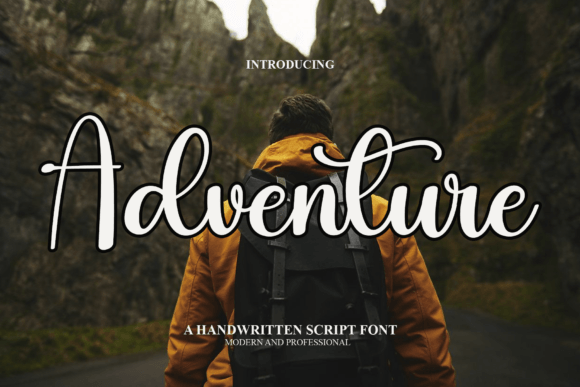
Get Ready for the Ultimate Creative Escape with Adventure Font
Have you ever found yourself in a creative rut, staring at a blank page with no idea where to begin? I’m sure you’re not alone. For designers, finding the right font can be the difference between a dull project and a truly unforgettable one. And that’s exactly where Adventure Font comes in – a unique, round-lettered handwritten font designed to transport you to a world of endless possibilities.
With Adventure Font, the possibilities are endless. Whether you’re writing titles, invitations, letters, or crafting unique products, this font is the perfect companion for your creative journey. Its carefully crafted design ensures that every project feels special and one-of-a-kind. As a designer, you’ll appreciate the value of having a versatile font that can elevate your work to new heights.
- Unique Characteristics: Includes 6 unique font styles, including “Bold”, “Italic”, and “Script” styles
Adventure Font Review
Overall, I’d say the Adventure Font has some great qualities that make it perfect for certain design projects ✨. Its unique blend of vintage and modern elements gives it a unique look that’s hard to find in other fonts. The font’s bold and playful personality shines through in its rounded edges and irregularities, making it a great choice for designs that need a bit of whimsy.
The font’s legibility is also noteworthy, with clear and readable text even at smaller sizes. I particularly appreciate the font’s versatility, as it can work well in both digital and print formats.
Limits and Criticisms
While the Adventure Font has its strengths, it’s not without its limitations ⚠️. One major issue is its lack of consistency in letter spacing, which can sometimes make the text look a bit cluttered or uneven. Additionally, the font’s bold weight can be a bit too aggressive for some designs, overpowering the rest of the content.
Here are a few areas where the font could be improved:
- Consistent letter spacing for a more polished look
- A more subtle bold weight option
- A wider range of language support
Overall, I’d recommend the Adventure Font for designers who are looking for a unique and bold font that adds a touch of personality to their designs. While it’s not perfect, its strengths outweigh its limitations, making it a great choice for the right project.
Adventure Font is ideal for:
1. Travel and adventure websites or social media posts.
2. Outdoor and nature-themed projects.
3. Marketing materials for tour operators or travel companies.
4. Personalized maps or travel journals.
To get the most out of Adventure Font, consider the following tips:
1. Pair it with bold and playful graphics to create a visually appealing design.
2. Use it in conjunction with other adventurous fonts to create a unique and eye-catching typography.